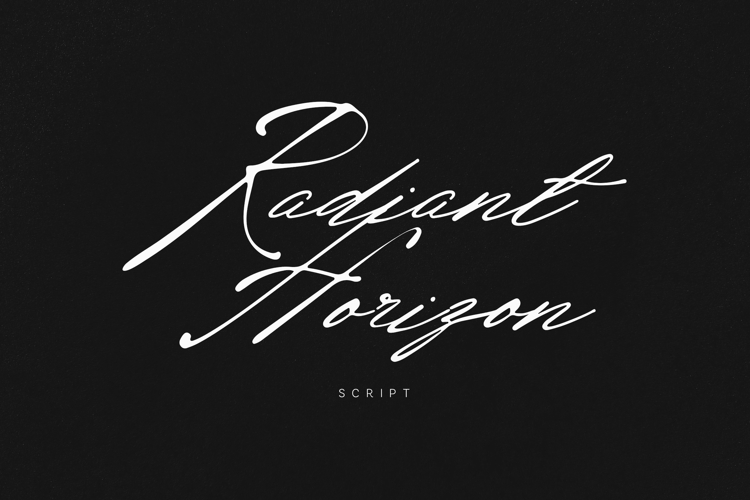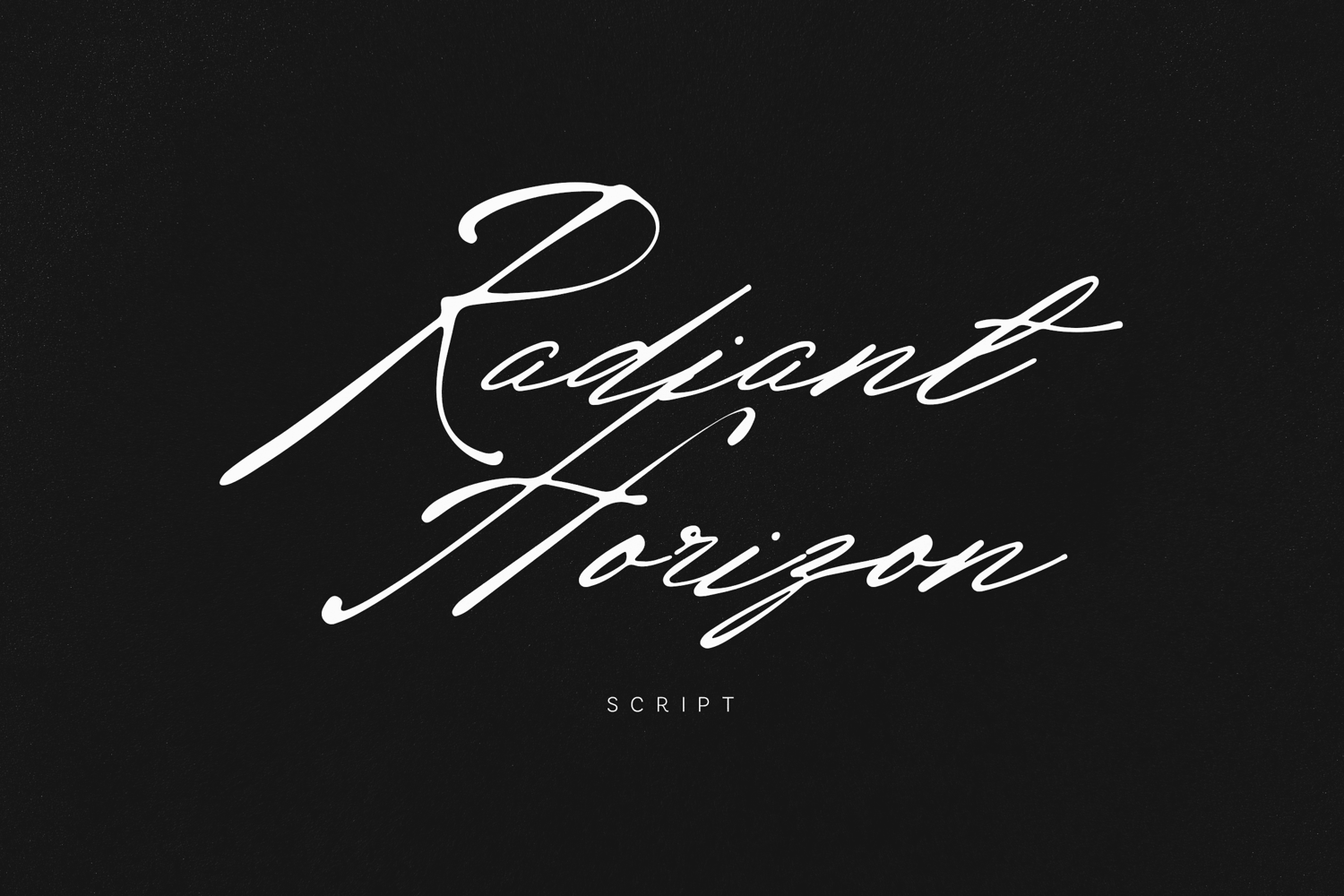
Radiant Horizon Signature Script Font
Radiant Horizon is an elegant signature script font designed to bring a refined, handwritten feel to modern design. With its flowing strokes, elongated letterforms, and graceful connections, it captures the essence of natural handwriting with a luxurious touch.
This font is perfect for creating sophisticated branding, signature logos, and stylish editorial layouts. Its smooth rhythm and expressive swashes make every word feel fluid, and premium.
Radiant Horizon blends minimalism with expressive calligraphy, making it a versatile choice for both digital and print projects.
Perfect for• Signature logos
• Luxury branding
• Fashion & editorial design
• Wedding invitations
• Social media & packaging
• Branding
• Smooth connecting script
• Elegant signature style